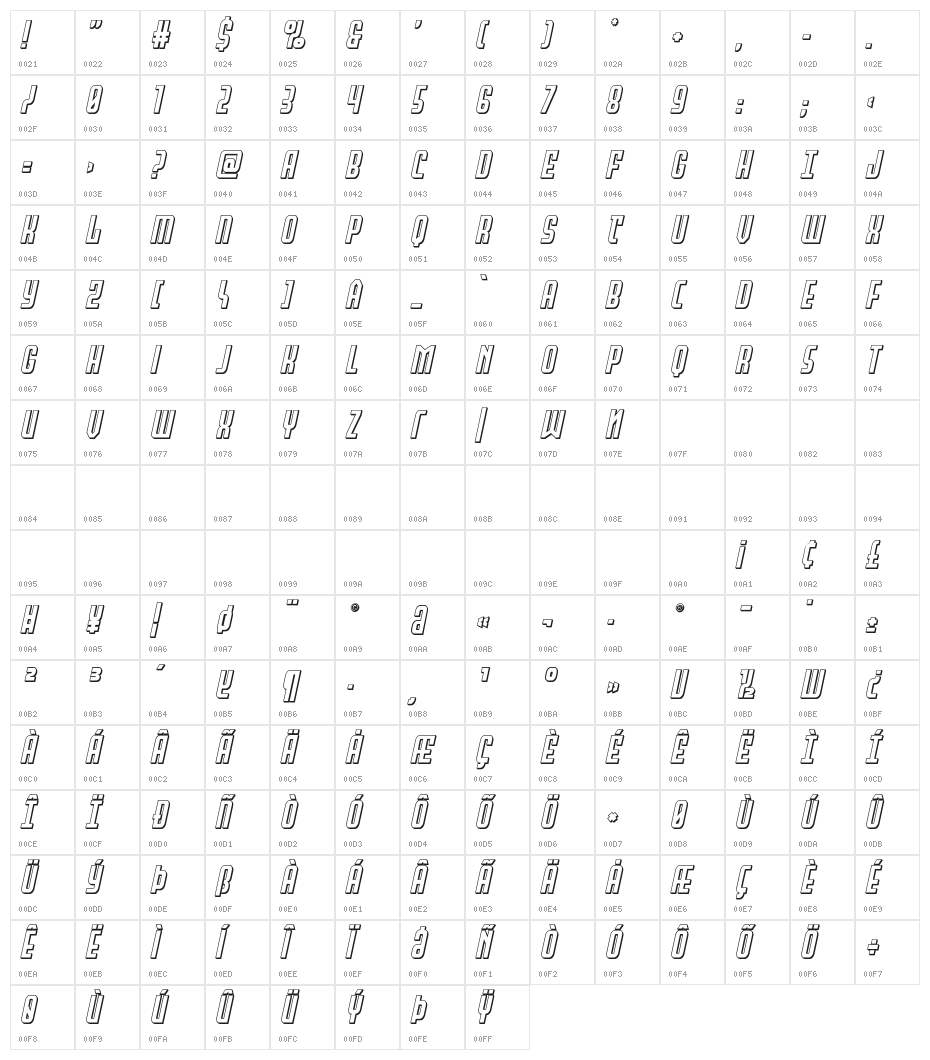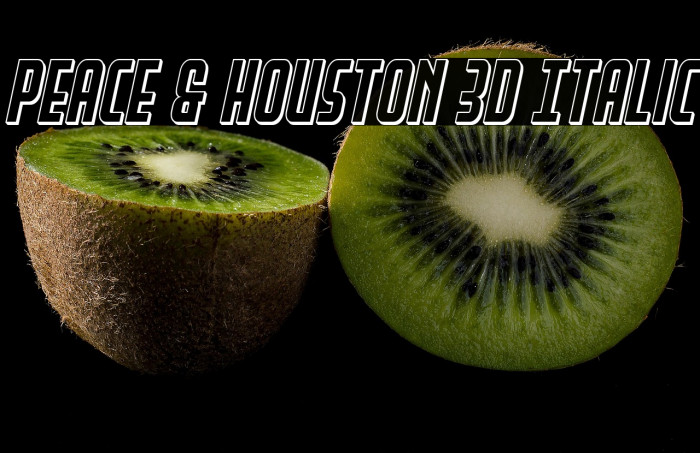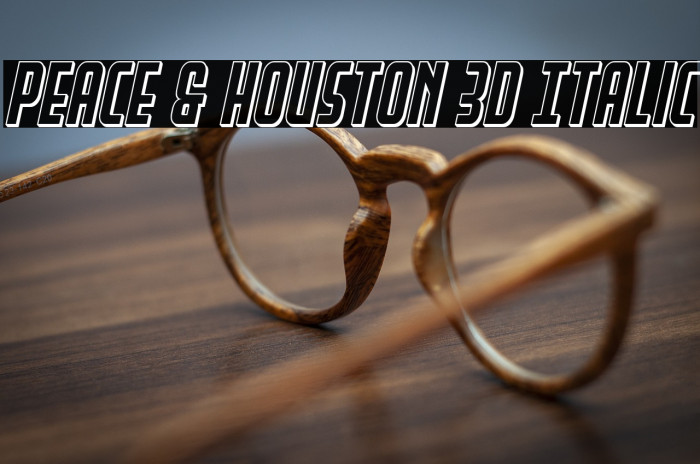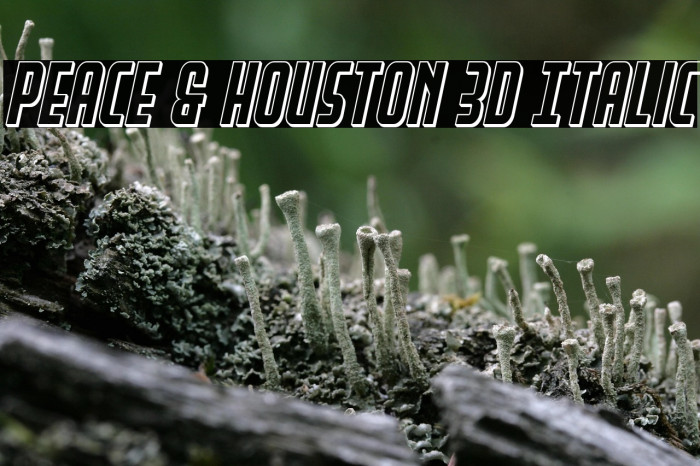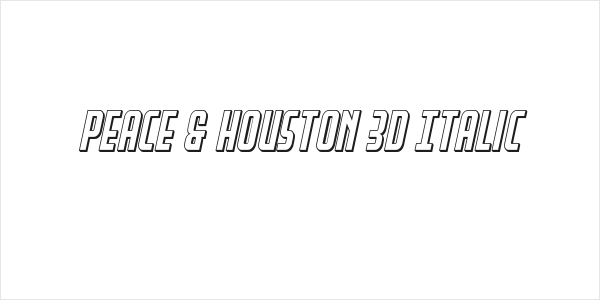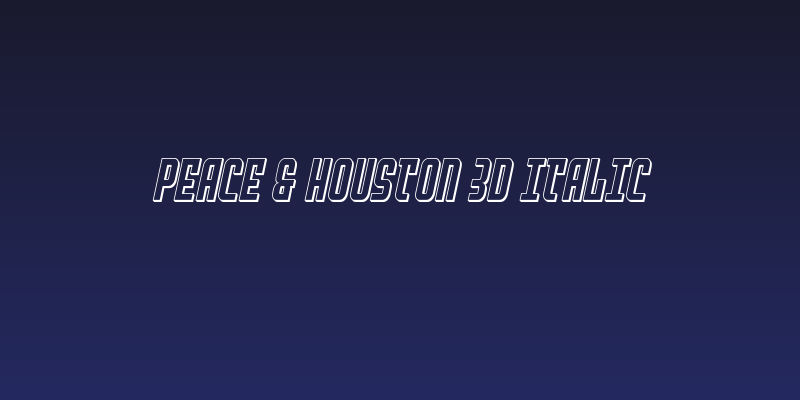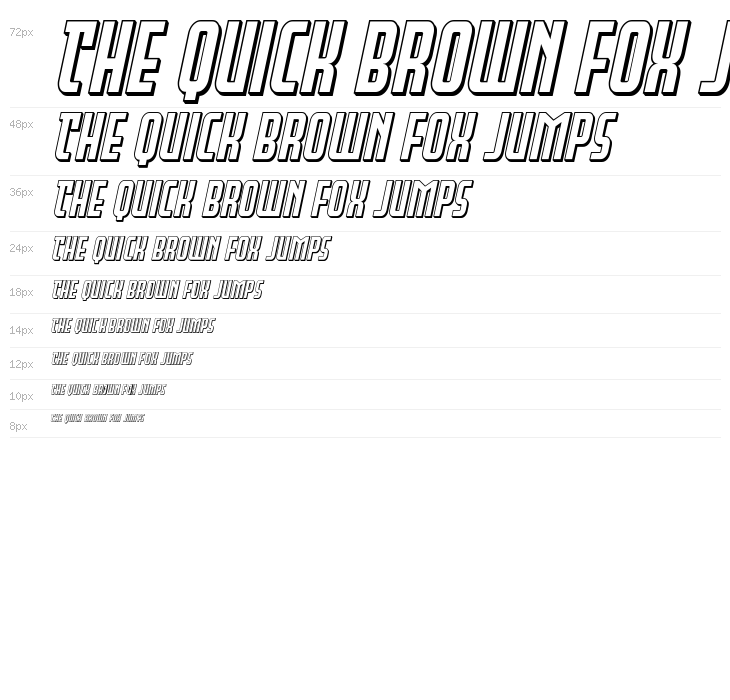
Peace & Houston 3D Italic Font
Peace & Houston 3D Italic Description
This font features a bold, three-dimensional design with a distinct italic slant, giving it a dynamic and modern appearance. The characters are outlined, creating a hollow effect that adds depth and visual interest. The uppercase and lowercase letters maintain a consistent style, with sharp angles and clean lines. The numbers and special characters are designed to match the overall aesthetic, ensuring a cohesive look across all elements. This font is particularly eye-catching and is well-suited for projects that require a strong visual impact.